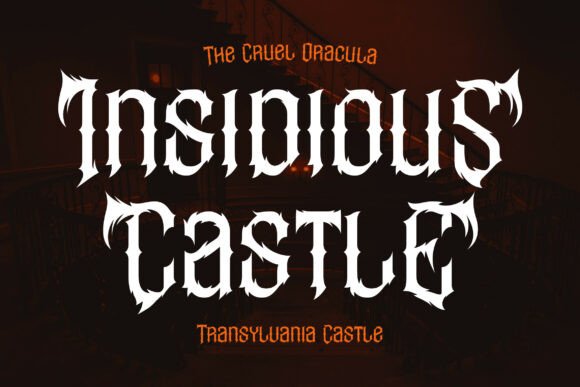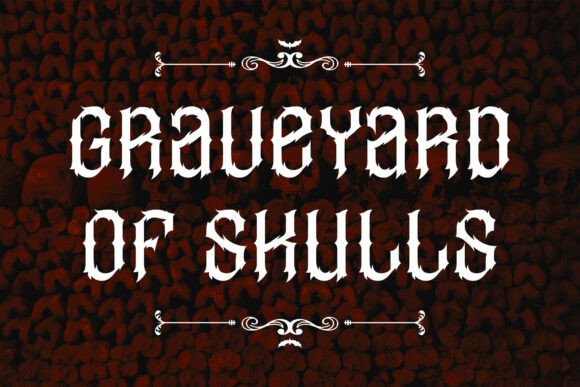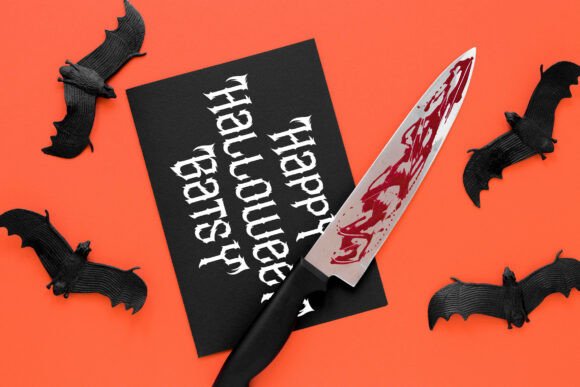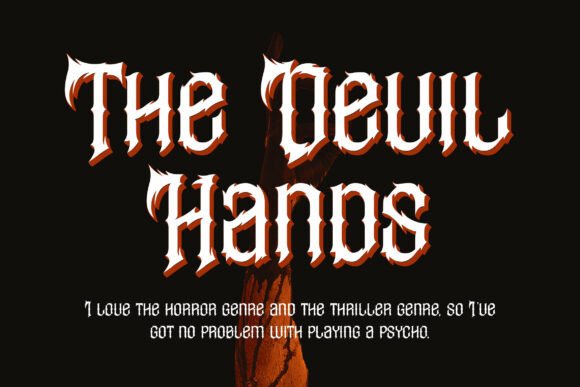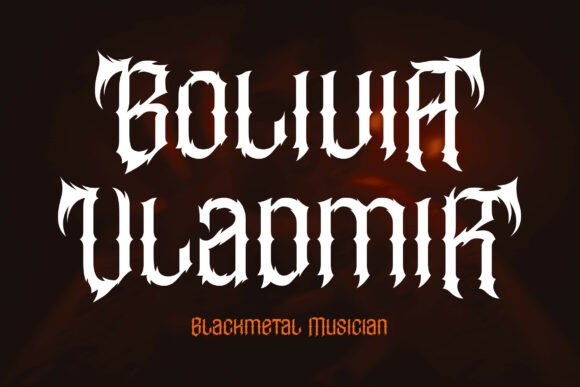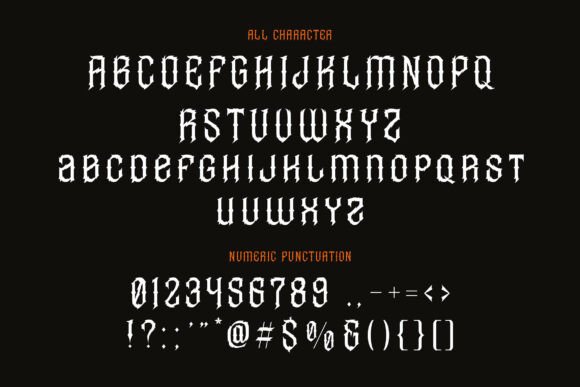
Unleash the Dark Side of Design with Devil Spirit Font
Imbued with a chilling Gothic flair, Devil Spirit is an captivating font that carries a hint of mystery and a potent charge of dark energy. Its uniquely sharp, spiky, and textured letterforms craft an atmosphere of suspense with an elegant twist, making it the perfect addition to any design that seeks to leave a lasting impression.
The Epitome of Gothic Elegance
Devil Spirit font is constructed with an eerie semblance to demonic shadows, exuding an intoxicating dark aura that is sure to captivate your audience. Every curve, every line, and every detail of this font is carefully crafted to evoke a sense of mystery and power. Whether you’re working on a heavy metal graphics project, a gruesome Gothic design, or a Halloween-themed artwork, Devil Spirit is the ideal selection to add a touch of the obscure.
Beyond Just Letters and Symbols
Devil Spirit font embodies more than just letters and symbols – it stands as an icon of power, birthed from the profound depths of creativity. Its bold, defiant style is poised to amplify your visual identity, heightening its allure and leaving a lasting, distinctive impression on your audience. This font is not just a tool for designers; it’s a statement piece that can elevate your artwork and make it stand out from the crowd.
Devil Spirit font is perfect for designers and crafters who seek to push the boundaries of their creativity. Whether you’re creating a logo, a poster, or a social media graphic, this font can add a touch of edginess and sophistication to your design. Its versatility makes it suitable for a wide range of projects, from:
- Heavy metal graphics and album covers
- Gruesome Gothic projects and horror-themed designs
- Halloween-themed designs and spooky decorations
- Dark and edgy fashion branding and advertising
- Music and entertainment marketing materials
Why Choose Devil Spirit Font?
So, why choose Devil Spirit font over other fonts in the market? Here are just a few reasons:
- Unique and distinctive design: Devil Spirit font boasts a one-of-a-kind design that is sure to grab attention and leave a lasting impression.
- Highly versatile: This font can be used for a wide range of projects, from digital designs to print materials.
- Easy to read and understand: Despite its bold and edgy design, Devil Spirit font is surprisingly easy to read and understand, making it perfect for body text and headlines.
- Scalable and flexible: This font can be scaled up or down without losing its quality, making it perfect for various applications.
Tips for Using Devil Spirit Font
To get the most out of Devil Spirit font, here are some tips to keep in mind:
- Use it sparingly: Due to its bold and edgy design, it’s best to use Devil Spirit font sparingly to avoid overwhelming your audience.
- Pair it with neutral fonts: Pair Devil Spirit font with neutral fonts to create a striking contrast and add visual interest to your design.
- Experiment with colors: Devil Spirit font looks great in bold and bright colors, so don’t be afraid to experiment and find the perfect color scheme for your design.
In conclusion, Devil Spirit font is a captivating and powerful font that can add a touch of mystery and dark energy to your designs. Its uniquely sharp, spiky, and textured letterforms make it perfect for designers and crafters who seek to push the boundaries of their creativity. With its versatility, scalability, and flexibility, Devil Spirit font is poised to become a staple in your font collection. So, why wait? Unleash the dark side of design with Devil Spirit font and take your artwork to the next level.